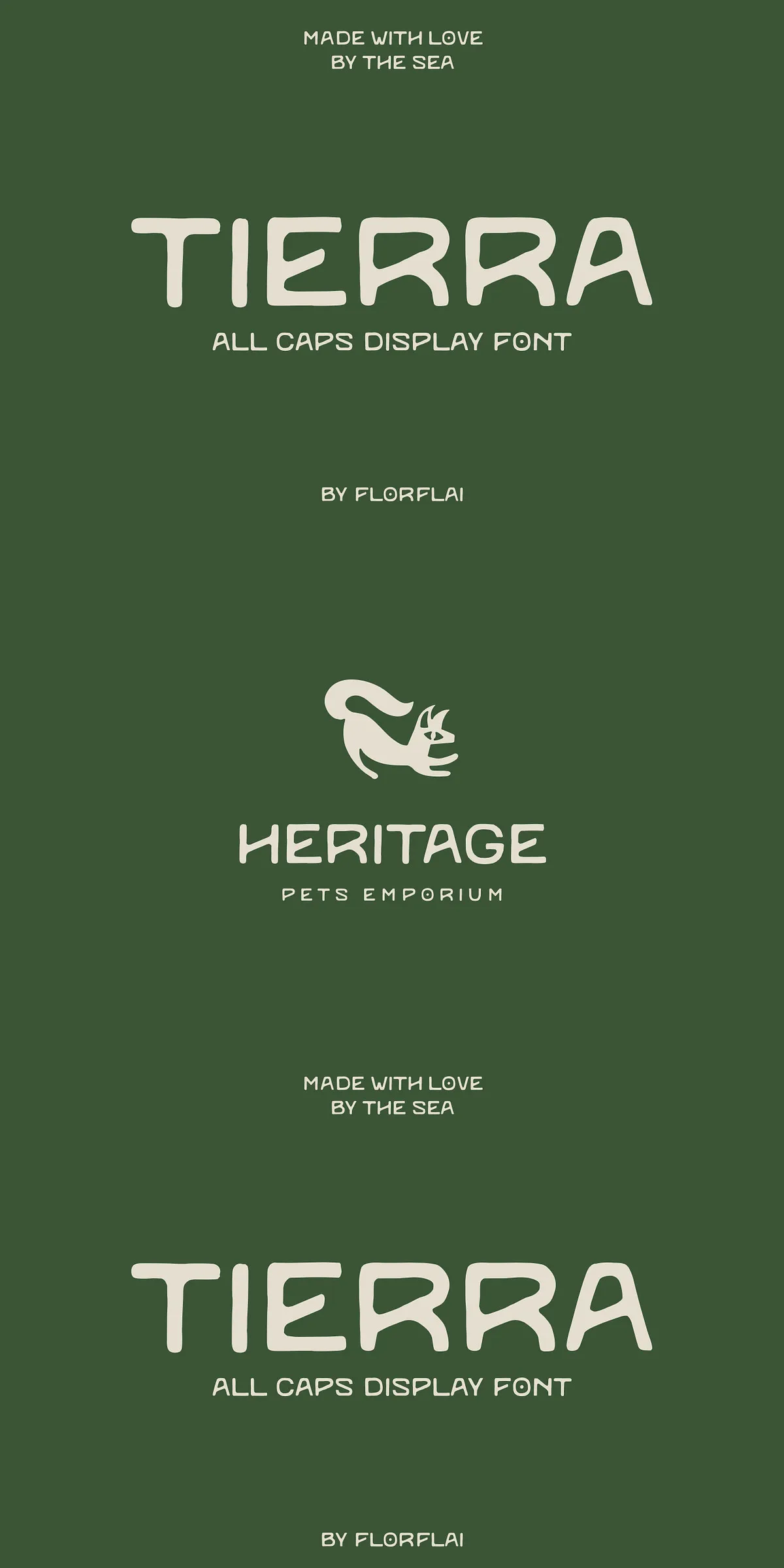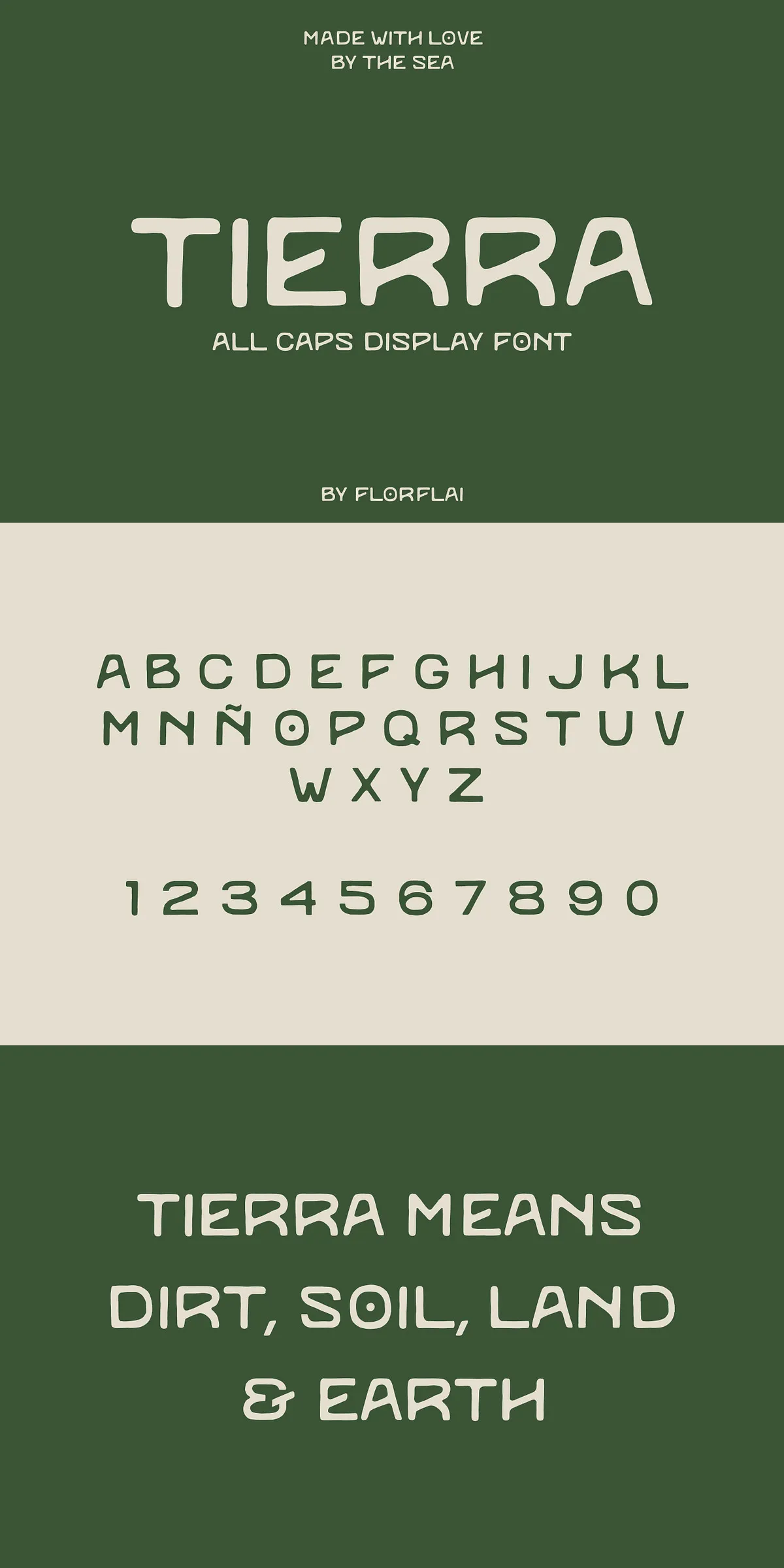
Step into the raw essence of the planet with Tierra, a powerful display font that captures the soul of the earth. In Spanish, “tierra” means land, soil, dirt, and earth — and this typeface lives up to that meaning. More than a font, Tierra is a design philosophy: unapologetically organic, deeply tactile, and profoundly grounded in nature’s quiet strength.
Where Design Meets the Earth — A Font For the Natural World
Tierra blends minimalist simplicity with the rich textures of nature. Its sans-serif structure is clean and modern, yet every character carries subtle irregularities — slight asymmetries, soft variations in stroke width, and micro-imbalance that mirror the natural world. Think of the uneven grain of a tree stump, the weathered surface of river stone, or the soft cracks in sun-baked soil — all beautifully translated into letterforms.
This isn’t a perfect font. It’s a real one. And that’s what makes it so powerful. In a world of sterile, algorithmic design, Tierra brings warmth, character, and authenticity to every project.
Design With Intent — Why Tierra Stands Out
Here’s what makes Tierra more than just a visual choice — it’s a statement:
- Organic Imperfections: Each glyph features deliberate natural deviations, mimicking the unpredictable beauty of real earth. These aren’t flaws — they’re features that build emotional resonance.
- Natural Aesthetic: Ideal for brands and projects that value sustainability, authenticity, and a deep connection to the planet. From eco-goods to environmental campaigns, Tierra tells a story of earth-first design.
- High Visual Impact: As a display font, Tierra commands attention. It’s perfect for bold headlines, branding logos, packaging design, and editorial layouts that demand presence and meaning.
- Emotion-Driven Typography: It’s not just about appearance. Tierra evokes feelings of stability, endurance, and belonging — a reminder that we are part of the ground we walk on.
Perfect for Projects That Speak to the Soul
Tierra transforms ideas into experiences. Use it to design for:
- Eco-Friendly Brands: Build identity for sustainable products, organic food lines, or zero-waste initiatives where authenticity matters.
- Environmental Campaigns: Create posters, infographics, and digital content that inspire action with visuals that feel grounded and real.
- Outdoor & Adventure Brands: Perfect for gear companies, hiking trails, conservation nonprofits, or travel content that celebrates the wild world.
- Art & Cultural Projects: Enhance storytelling for exhibitions, documentaries, or literary works that explore human connection to the land.
- Minimalist yet Powerful Packaging: Let Tierra become the voice of your product, conveying honesty and care through every line and curve.
A Font That Works — Versatile, Professional, Ready to Use
No matter where your project lives — in print, on screen, or in a physical space — Tierra adapts seamlessly. It’s not just visually striking; it’s technically reliable.
For Designers Who Value Meaning Over Manufacture
Tierra is more than a tool. It’s a philosophy. It’s a choice to design with purpose, to reflect the world as it truly is — not polished, not fake, but alive.
Whether you’re a brand builder, a creative director, or a passionate designer, Tierra invites you to slow down, connect, and create something that feels real.
You’re not just adding a font. You’re adding a mindset. A commitment to authenticity. A visual language that speaks the earth’s truth.
Because great design doesn’t just look good. It feels like home.